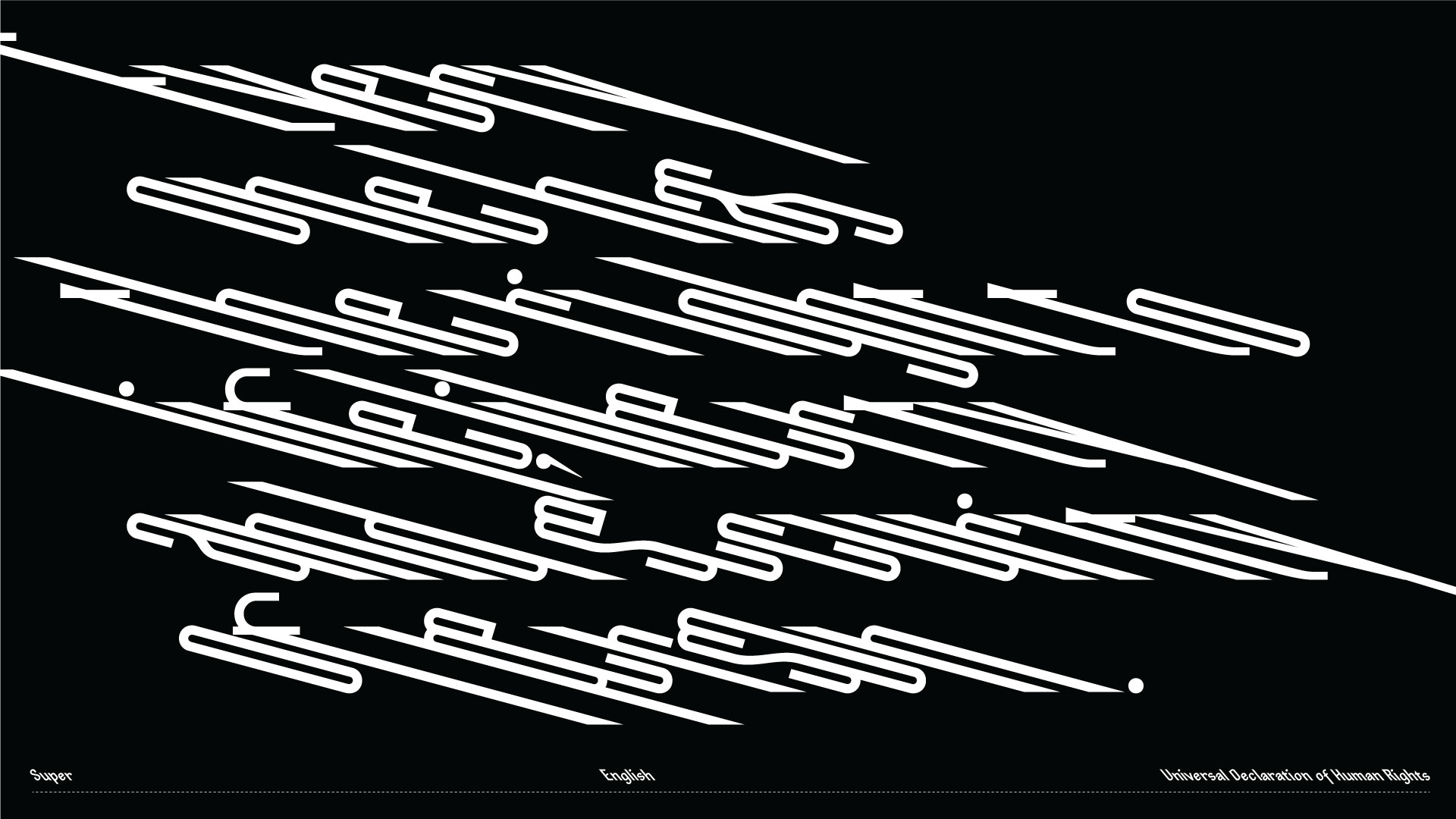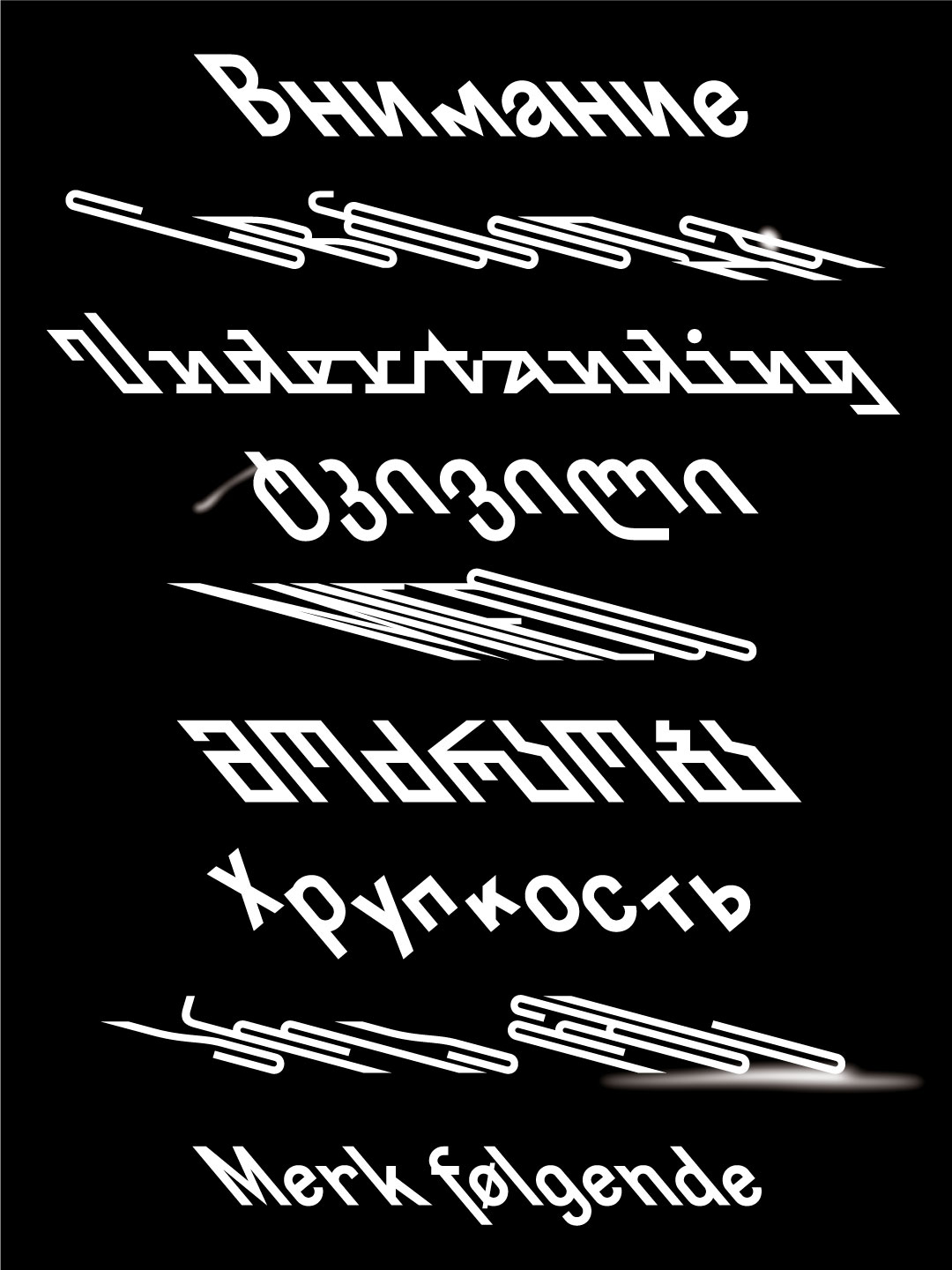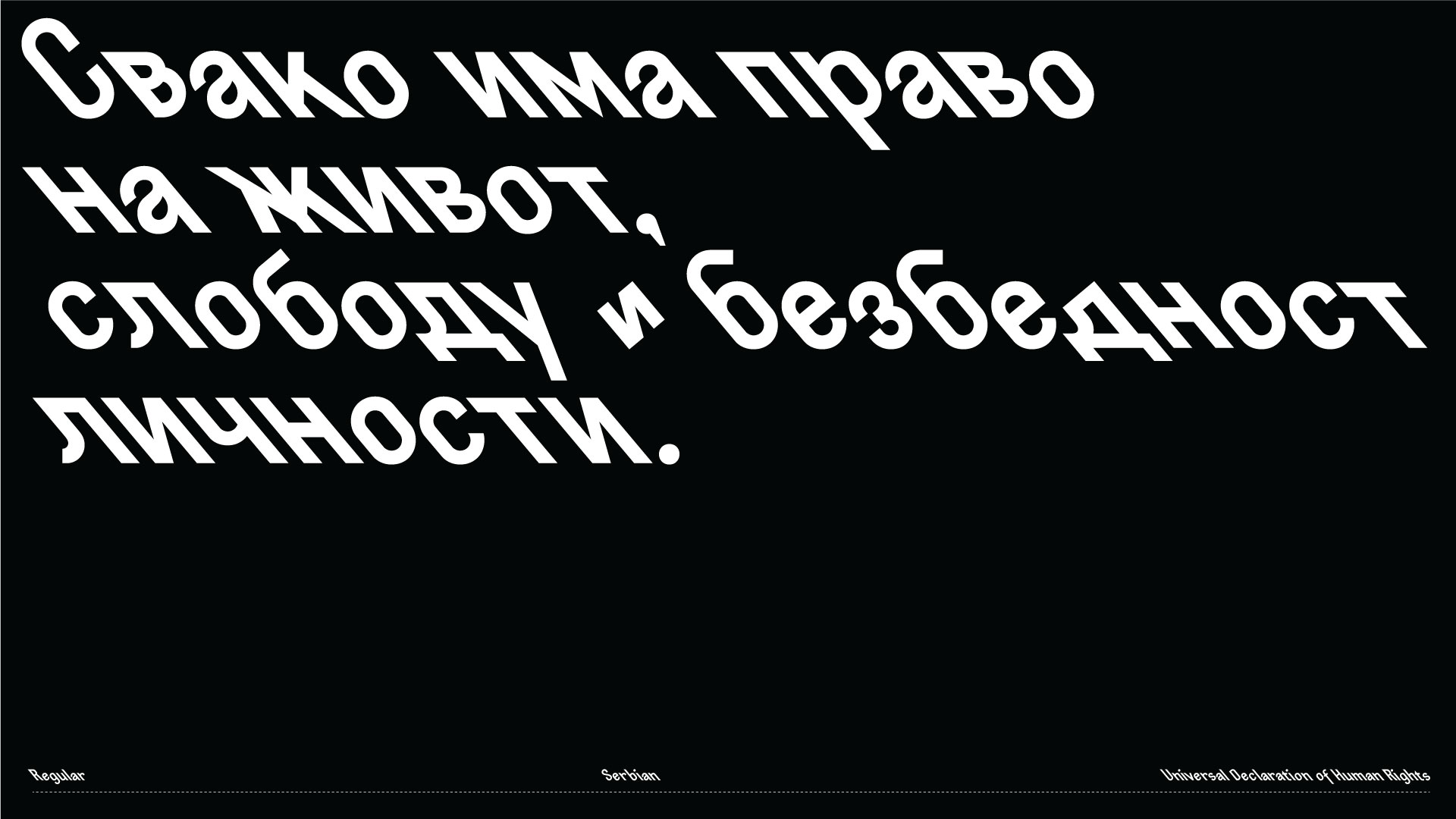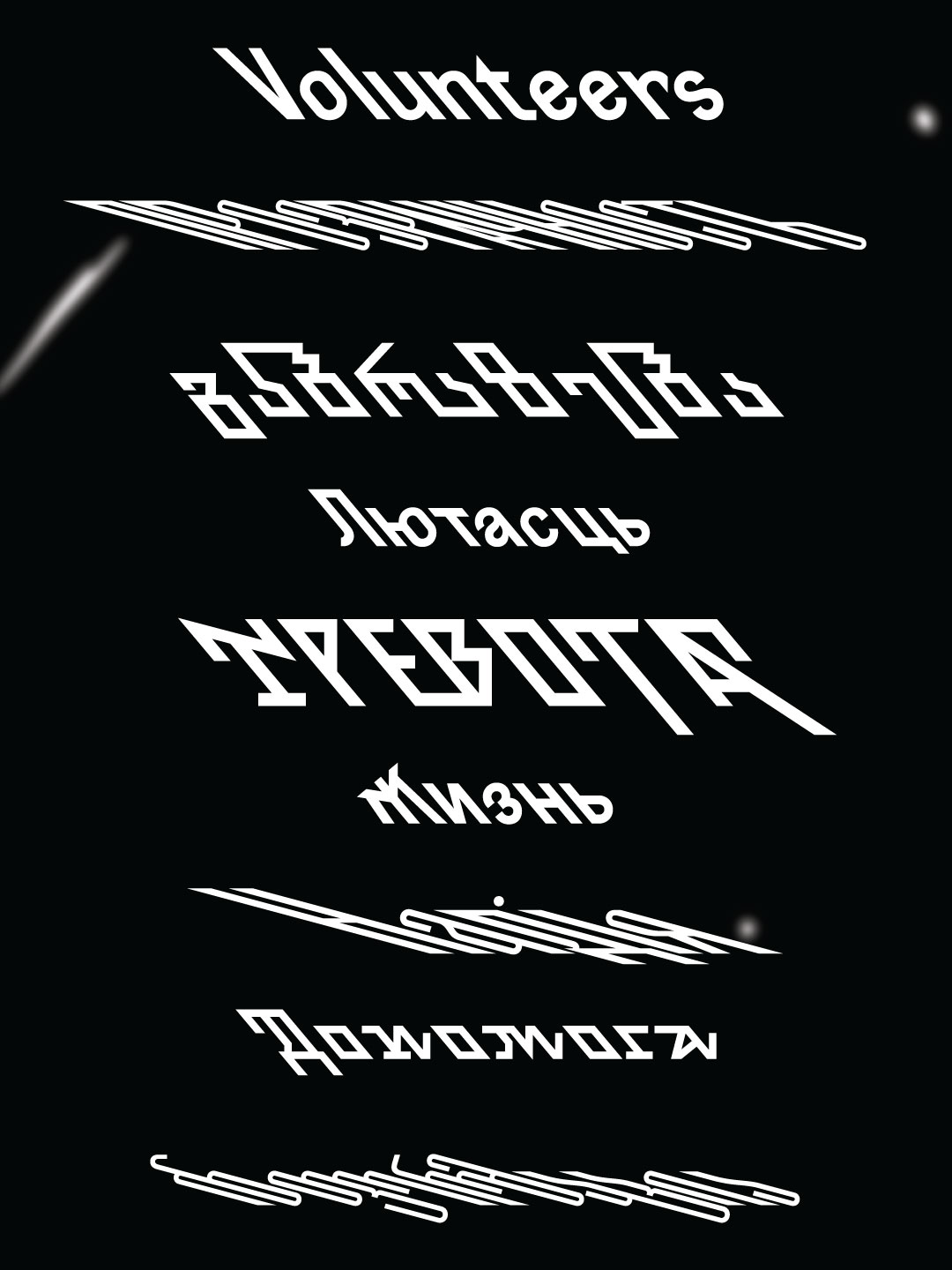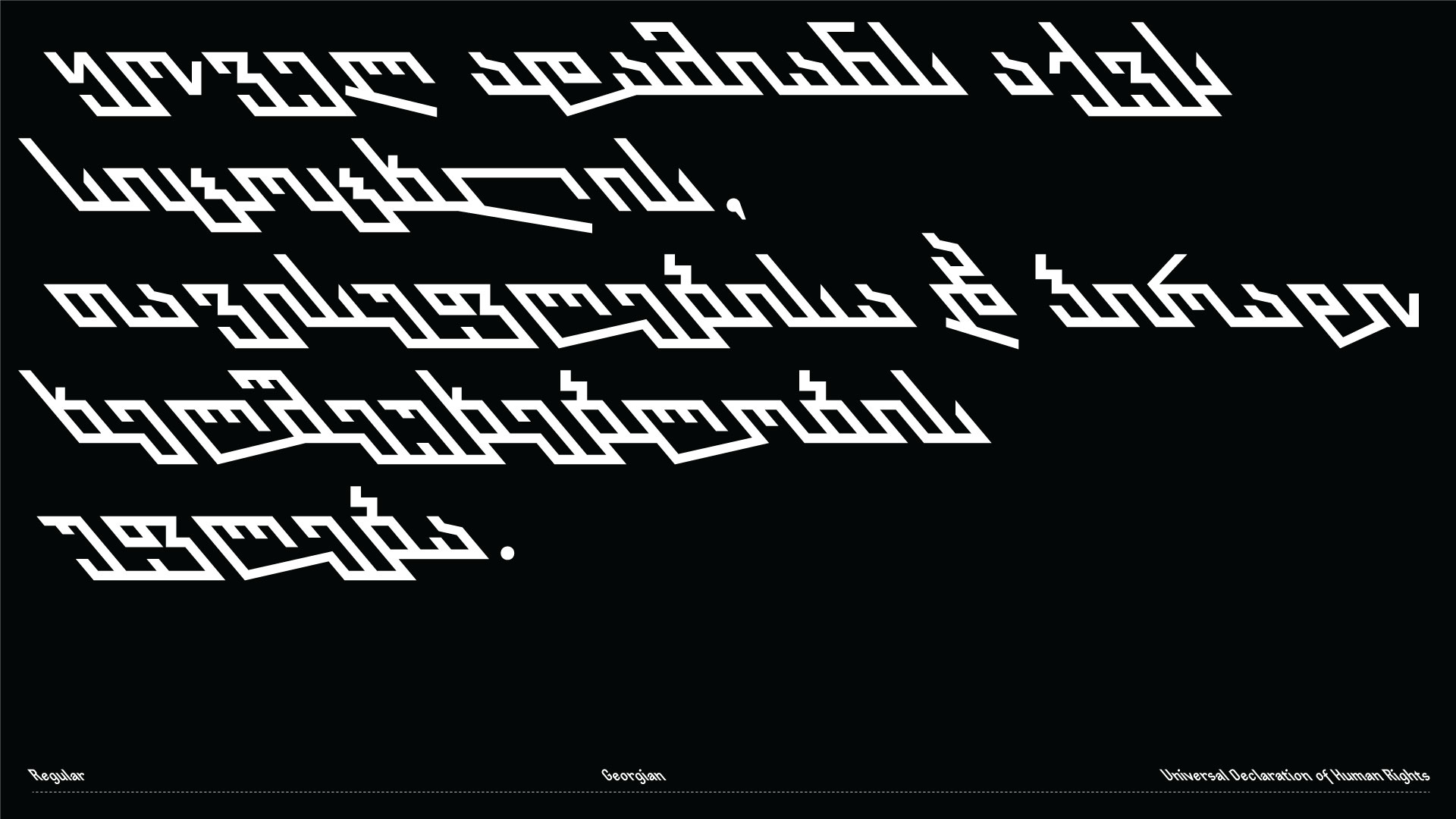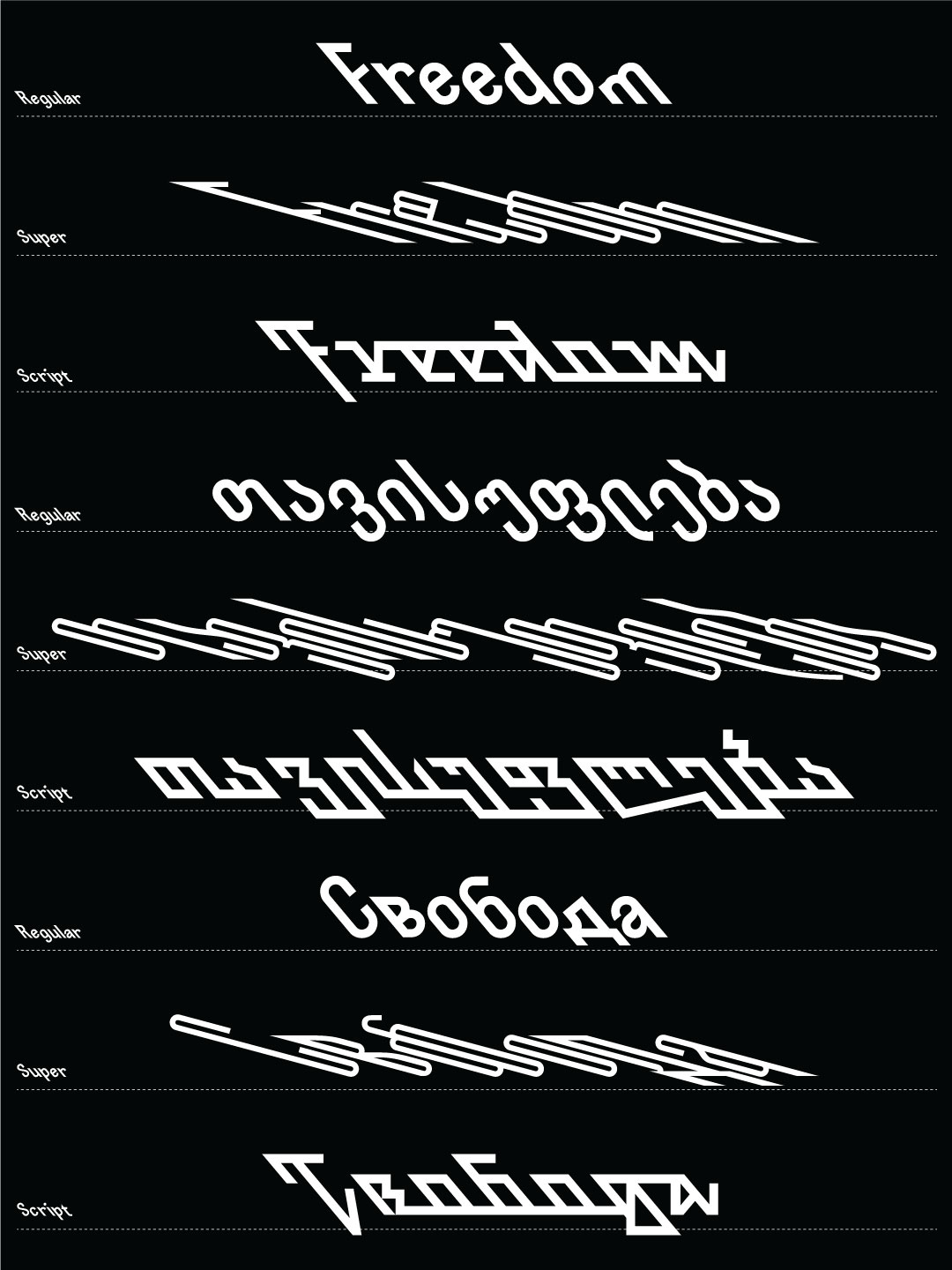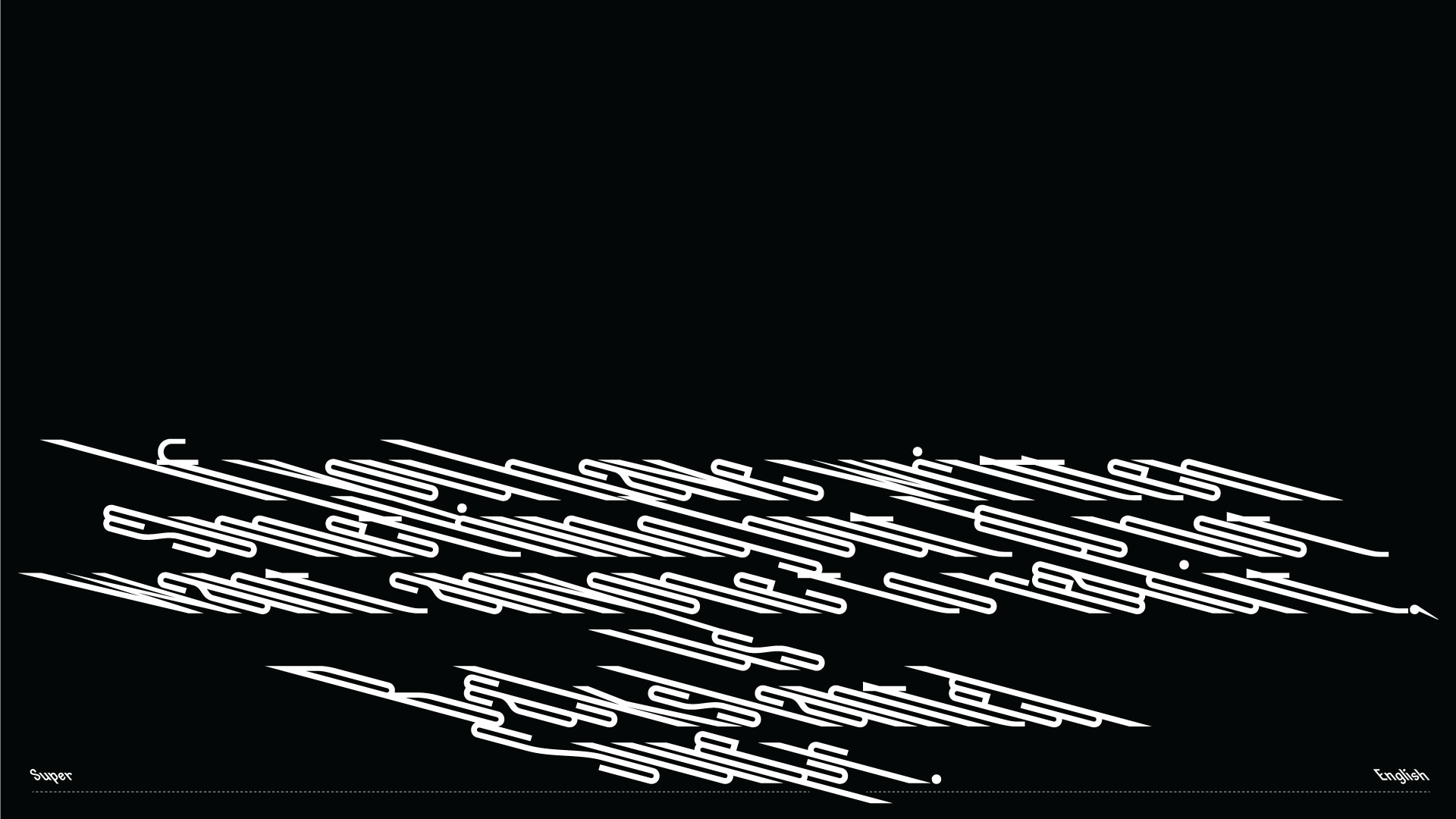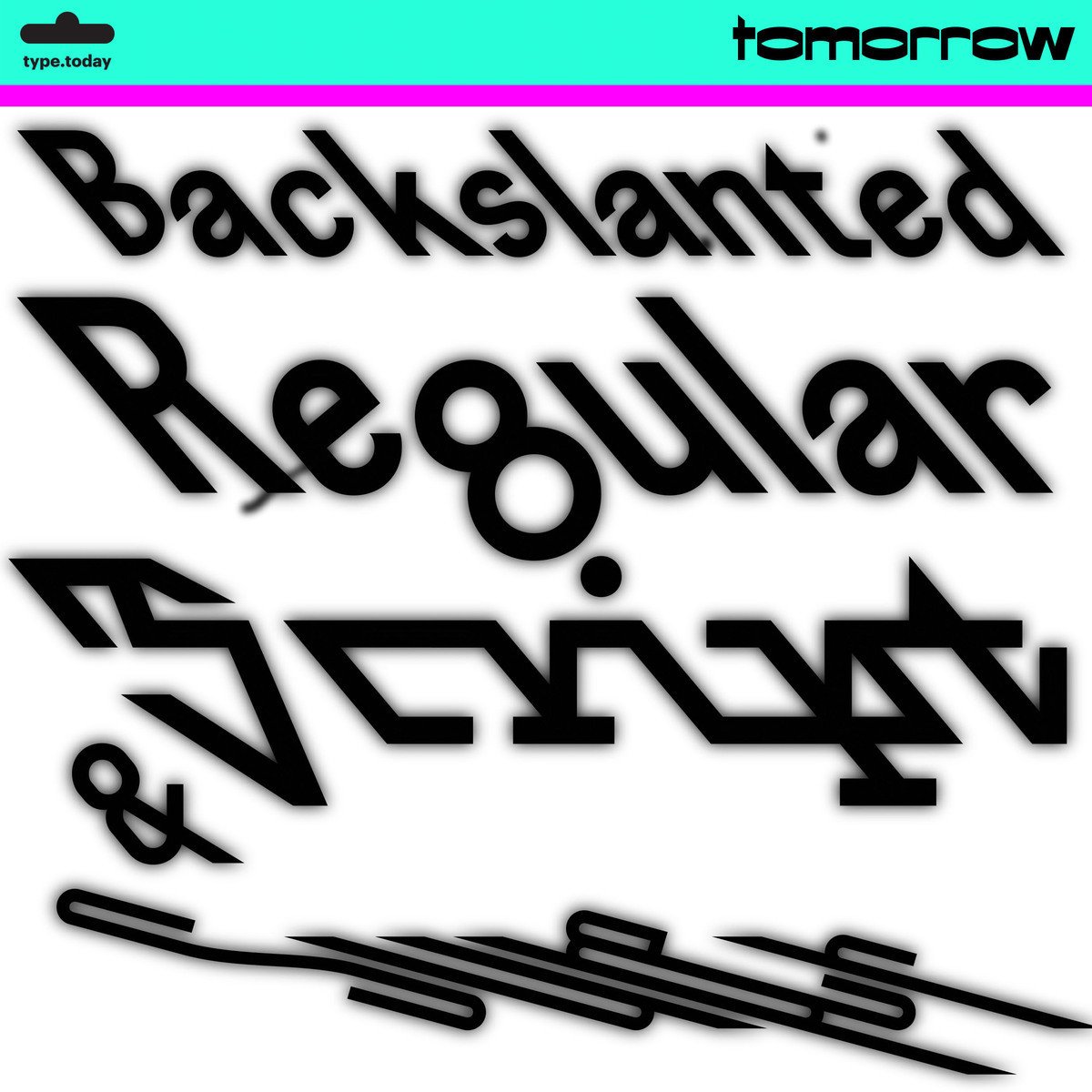
Backslanted is not a font family, but rather a font series including backslanted typefaces of various styles, weights and angles. The series explores backslanted forms defined by their drawing tools (a ruler and a driver) with a minimum amount of optical compensations. Backslanted began in 2022 as a response to a feeling of being
Backslanted series now contains two sans serif typefaces (Regular and Super), and a Script. All these typefaces are equipped with math and currency symbols and a number of stylistic alternatives, contextual alternates and ligatures
Backslanted supports Extended Latin, Georgian and Cyrillic.
The series is to be supplemented by other styles like Serif, Geometric Italic and probably other kinds of typefaces drawn with the same tools. While Backslanted Blackletter is already available on Future Fonts.